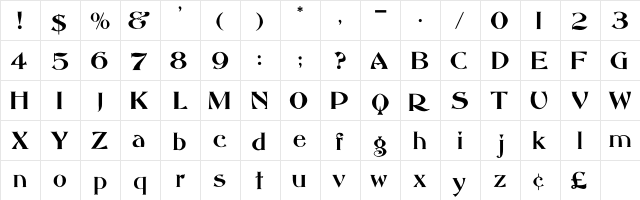
Abbess Regular
Design Context for Abbess Typeface
Abbess is a composed and adaptable typeface that performs quietly and consistently across a wide range of design contexts.